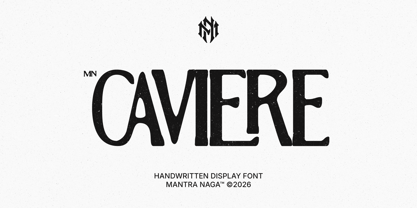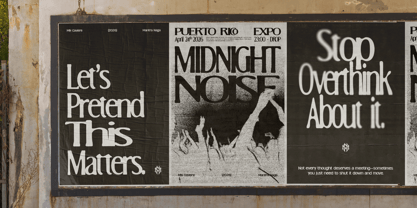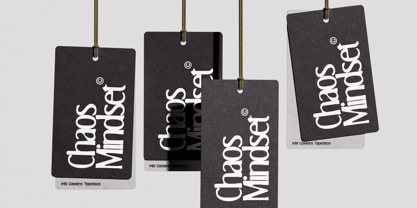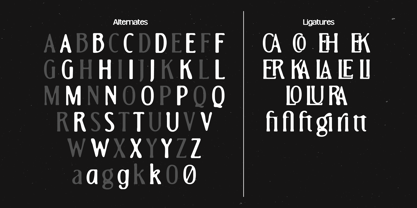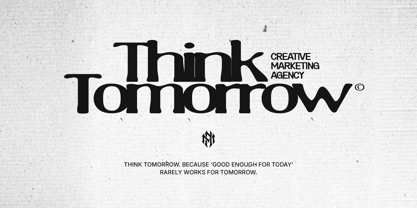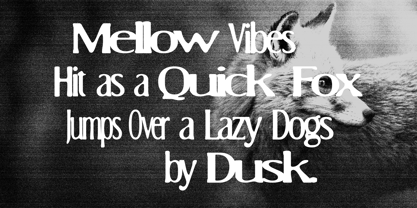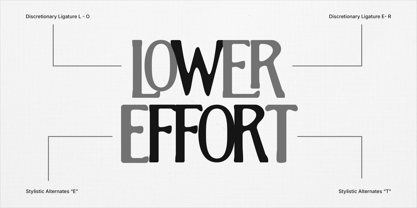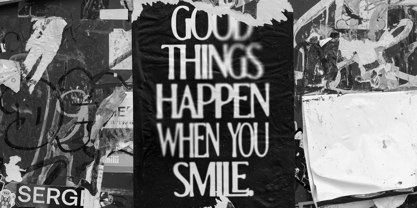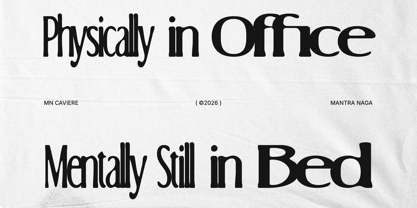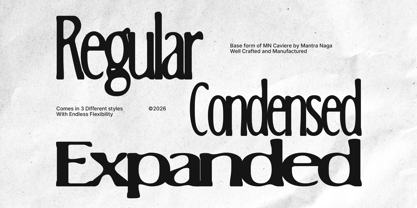
MN Caviere
The MN Caviere Font Family was designed by Fredo Eka Pratama and published by Mantra Naga Studio. MN Caviere contains 3 styles and family package options. More about this family
MN Caviere is a blurred serif typeface that captures the quiet elegance of ink on textured paper. Its defining character lies in a subtle ink-bleed effect. Slightly blurred strokes that give each letterform a soft, organic quality, as if freshly printed with wet ink on a handmade surface.
Tight kerning pulls each word into a dense, cohesive rhythm, making every line feel intentional and tactile. The result is a typeface that doesn’t just display text. It evokes craft, texture, and a certain unhurried sophistication.
Designed for creatives who work at the intersection of art and editorial, MN Caviere is built for fashion spreads and artistic publications, album covers and creative posters, niche and artisan brand identities, and any project that calls for something handcrafted in spirit.
If your work demands a typeface with weight, warmth, and a distinct point of view, MN Caviere was made for that.